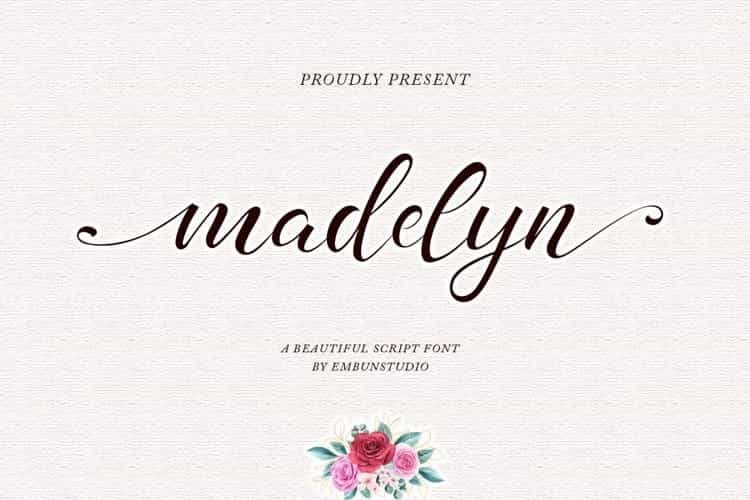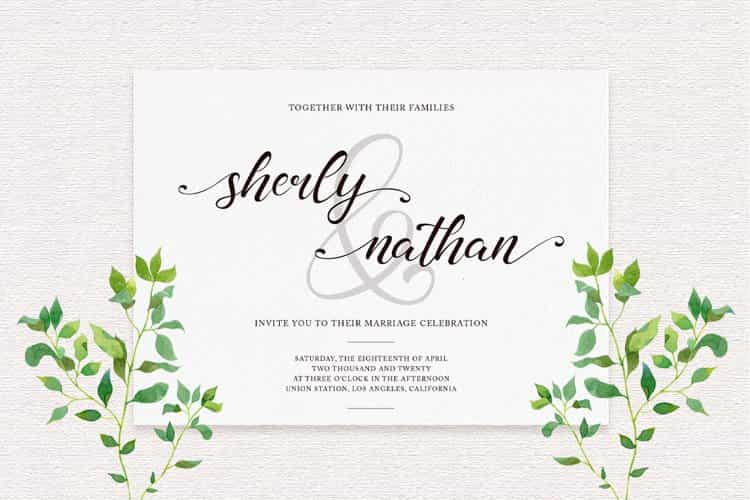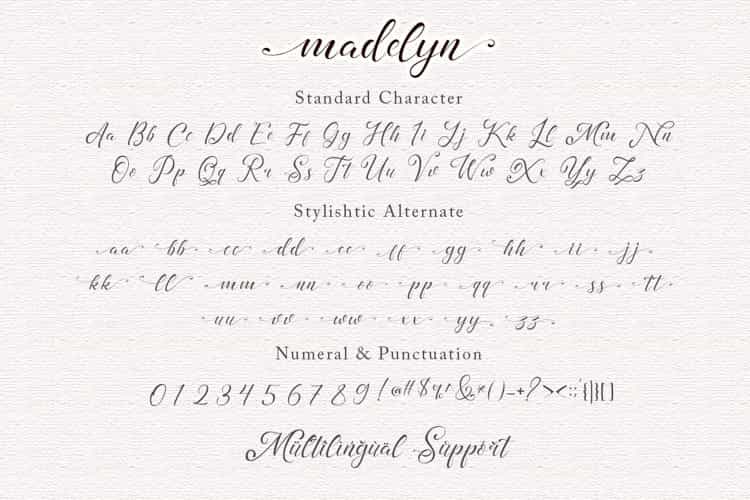
Discover Madelyn Chic Font, part of the Calligraphy Handwritten collection—a versatile and unique font perfect for adding a personal touch to your projects. Download it for free and enjoy crafting designs with style, from invitations to social media posts. This font is available exclusively for personal use, giving you the freedom to create without limits. Unlock your creativity with Madelyn Chic Font today!
Madelyn is a modern calligraphy style typeface. With 270 glyphs, it consists of beautiful stylistic alternates like “ligature” which is an essential feature for your chic taste project such as wedding invitation, business card / name card, souvenir, logo, etc.